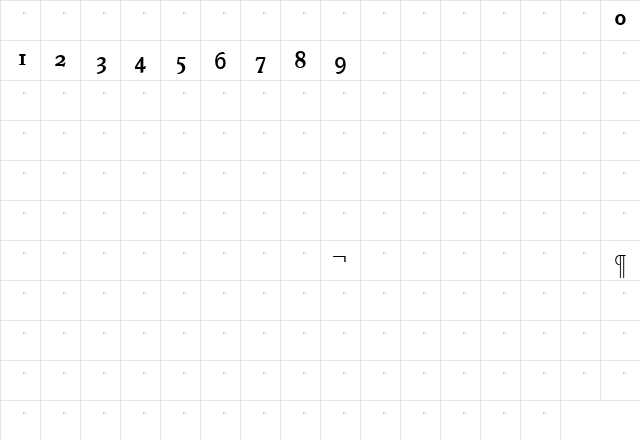
VeroneseMediumOldStyleFigures Medium
Design Context for VeroneseMediumOldStyleFigures Typeface
VeroneseMediumOldStyleFigures carries the refined structure of traditional serif typography, with bracketed terminals and considered proportions that communicate credibility and craft.